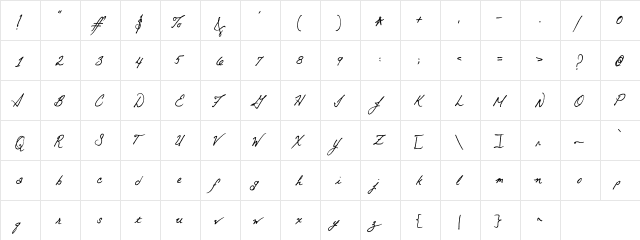
Otto Medium
Design Context for Otto Typeface
Otto takes a measured approach to typography — its balanced proportions and neutral character make it a reliable workhorse for both digital and print work.